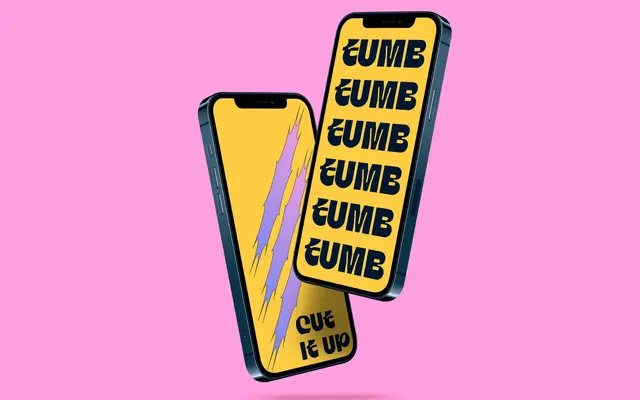
A single-weight quirky display font covering basic Latin and extended character sets, with no additional weights or styles.
Tumb is a display typeface from That That Type, offered in one weight with coverage across Basic Latin, Latin-1 Supplement and a modest selection of Latin Extended glyphs. The character set includes standard ligatures, basic mathematical operators and currency symbols, making it functional for headline and short-form display use. Its single-weight, single-style offering limits its range considerably.
Self-described as a quirky display font; the single-weight Latin offering and expressive character forms place it firmly in the display category with no body-text intent.